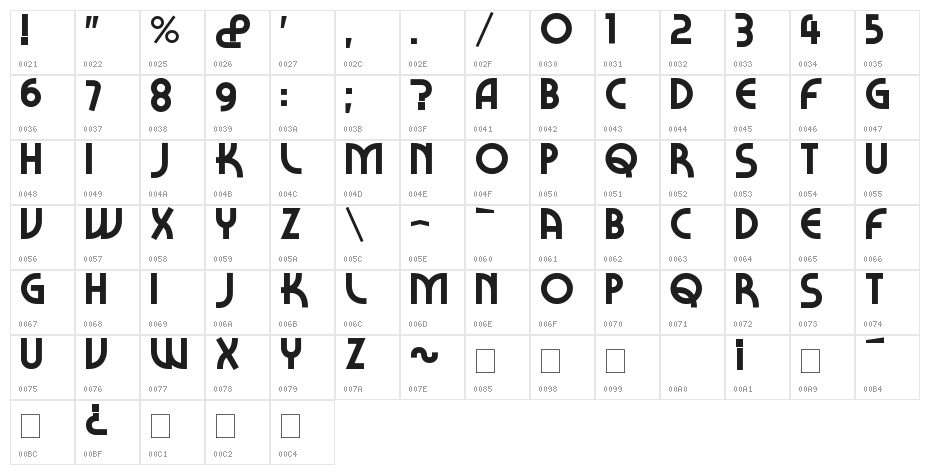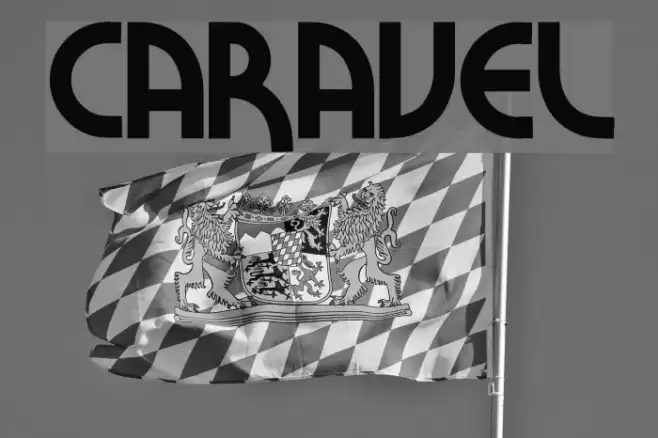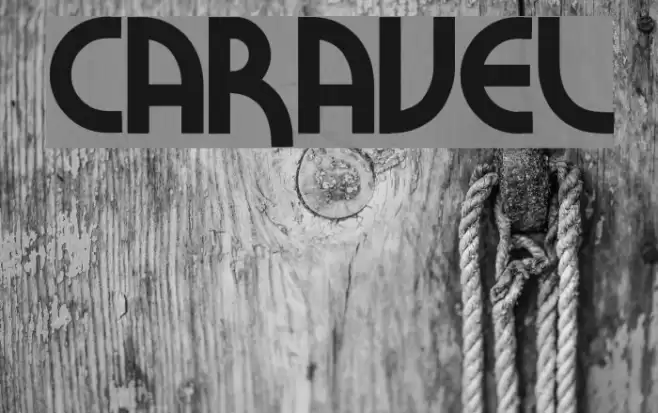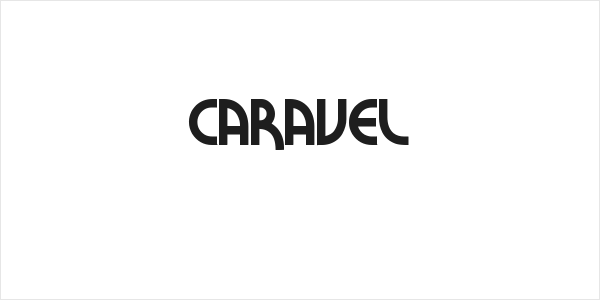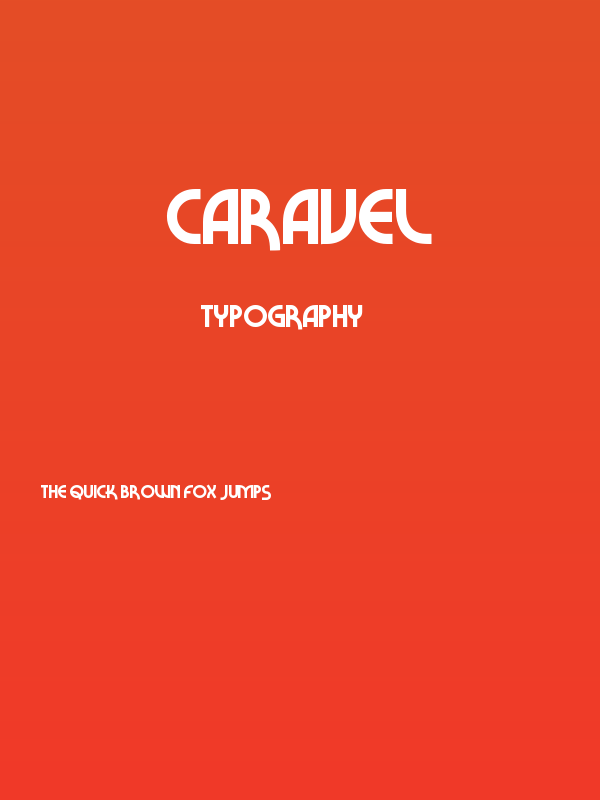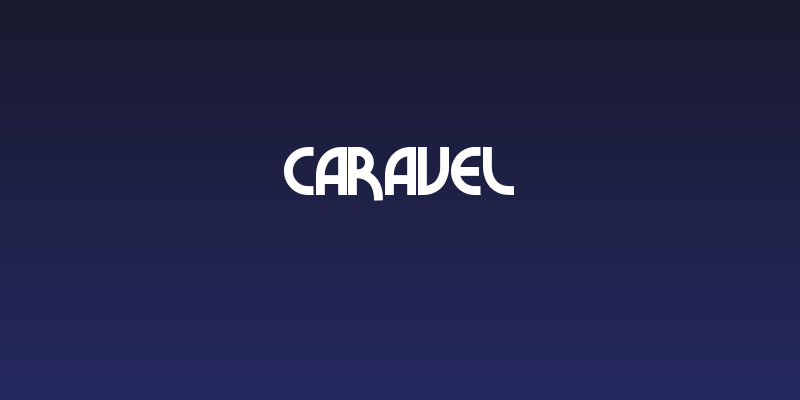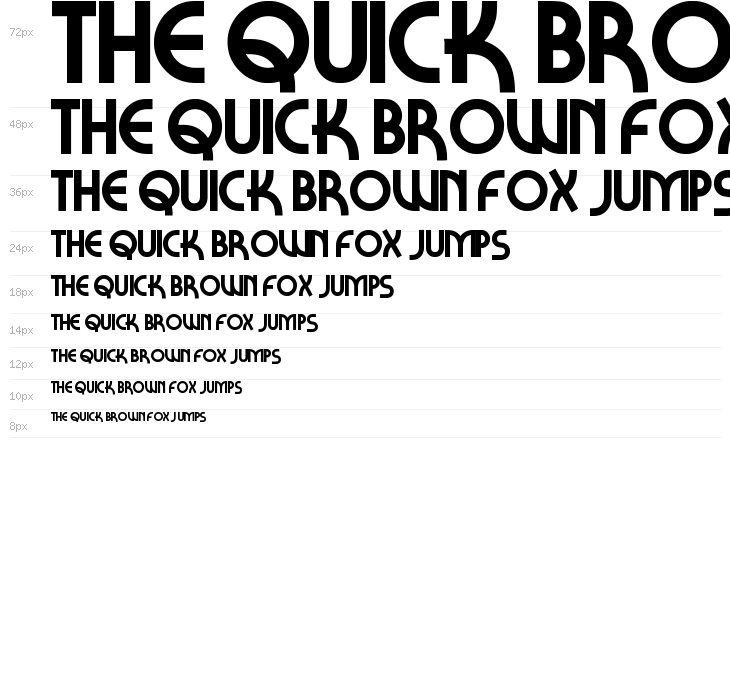
Caravel Font
Caravel Description
This font features a bold and geometric design with a modern flair. The characters are crafted with a consistent stroke width, giving it a uniform appearance. The uppercase letters are particularly striking, with a unique curvature that adds a touch of sophistication. The numerals are clear and easy to read, making them suitable for various applications. The special characters are well-integrated, maintaining the overall aesthetic of the font. Its clean lines and contemporary style make it versatile for both digital and print media.
| Proposed Projects | Ideal for branding, headlines, posters, and digital media where a modern and bold statement is needed. |